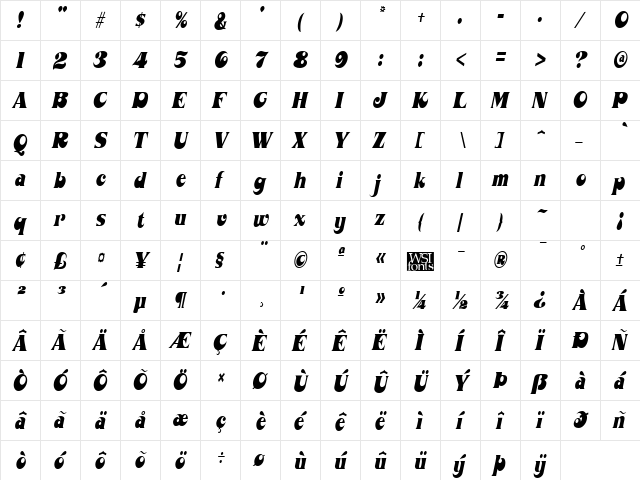
Mahaney Italic
Design Context for Mahaney Typeface
Mahaney takes a measured approach to typography — its balanced proportions and neutral character make it a reliable workhorse for both digital and print work. The slanted form adds forward momentum and visual energy.